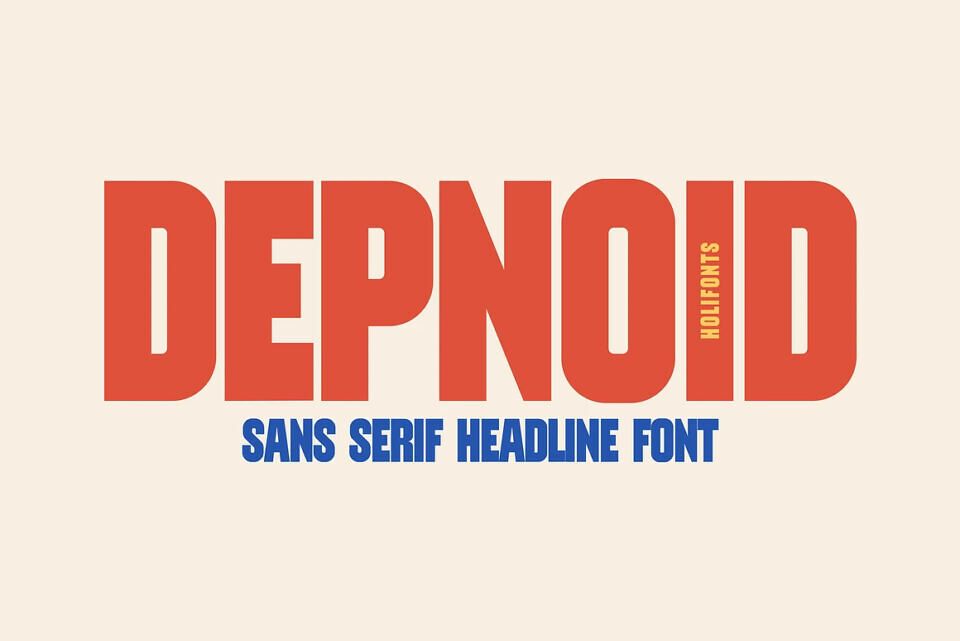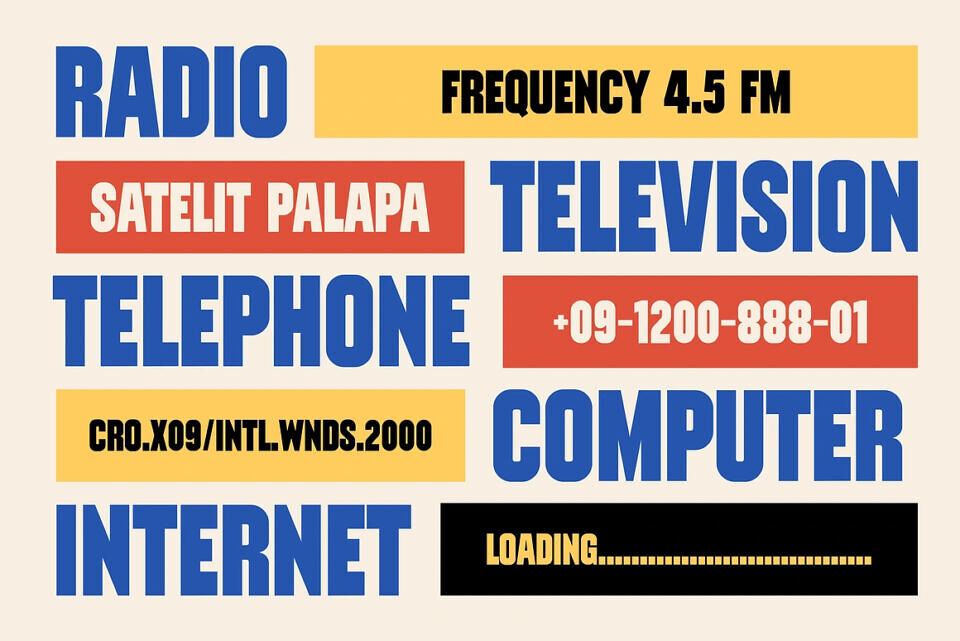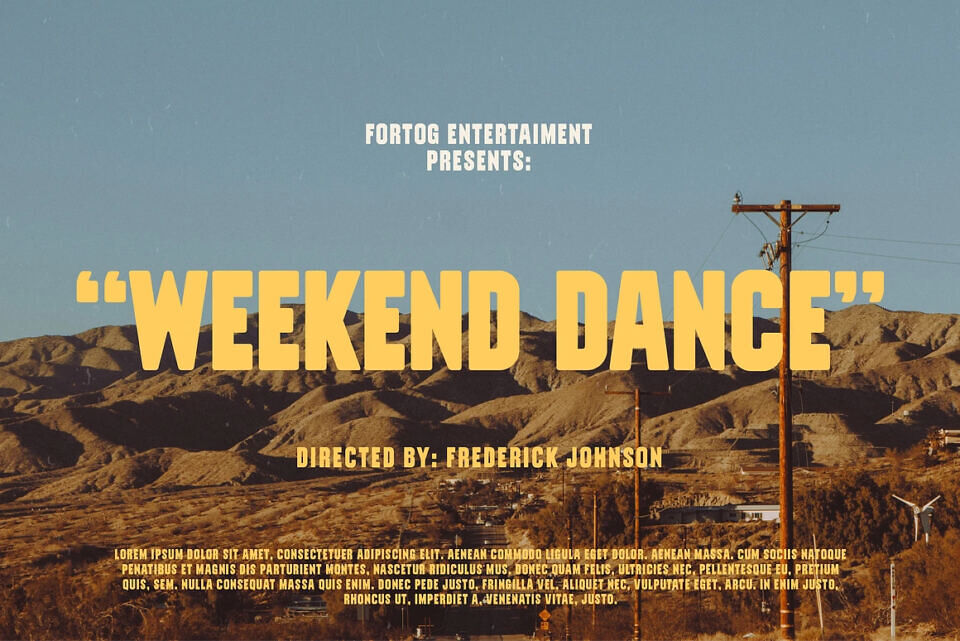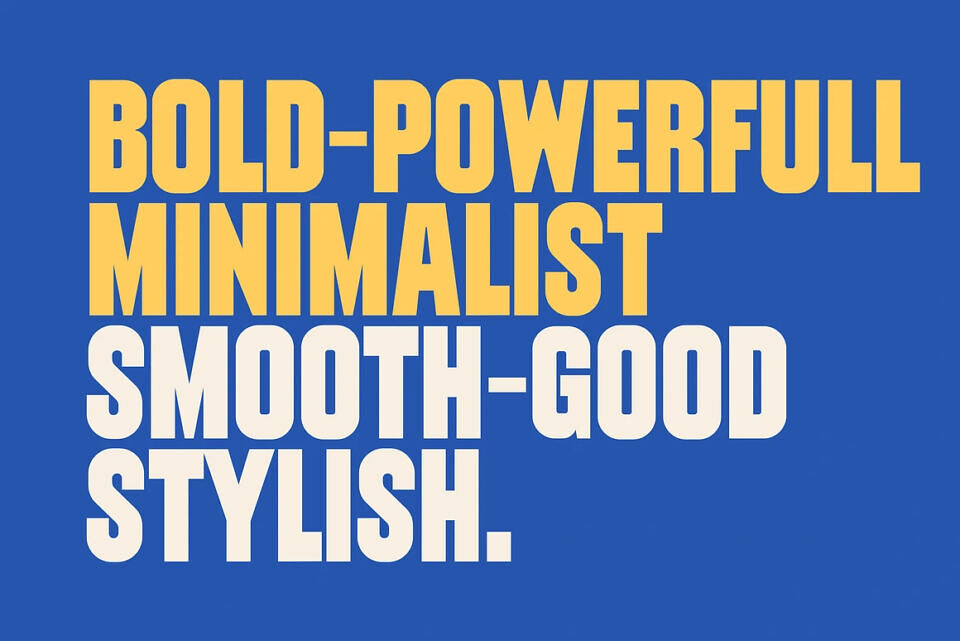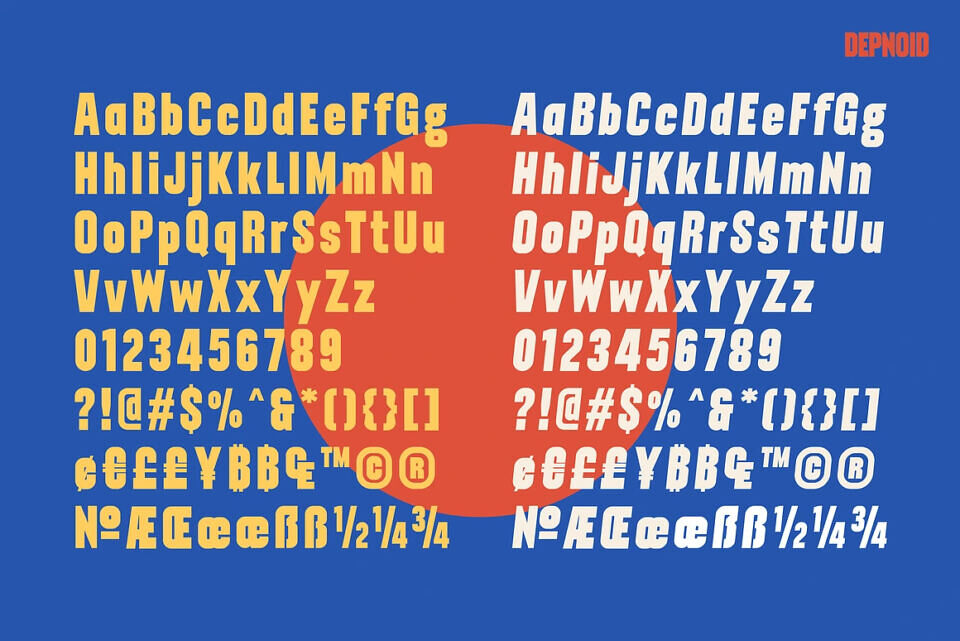
Depnoid is a striking font that comes in two styles: regular and rounded, with italic options. Its bold design makes it well-suited for large-scale use, such as posters, titles, logos, and headlines, where it can make a lasting impact.